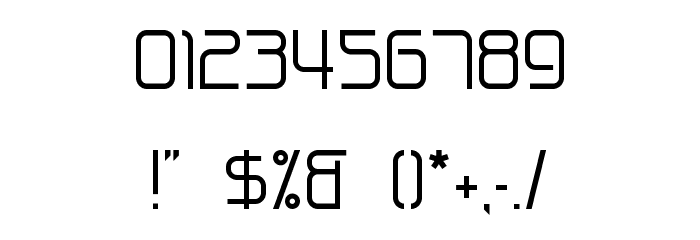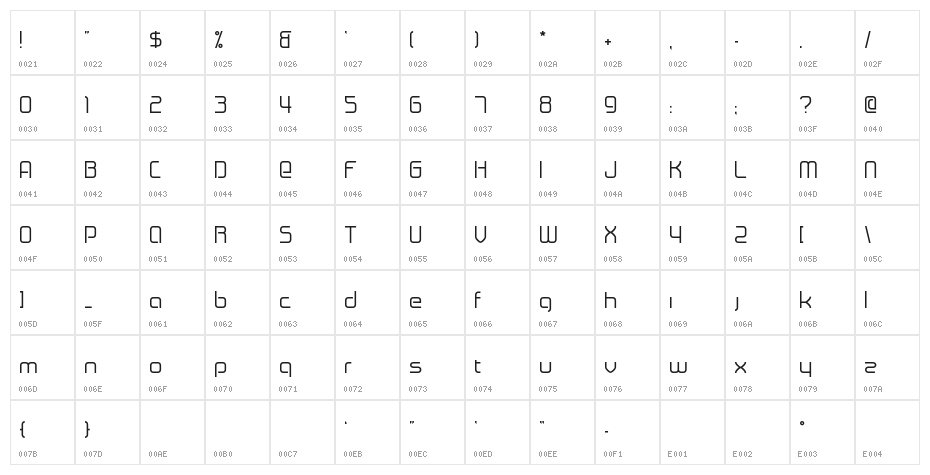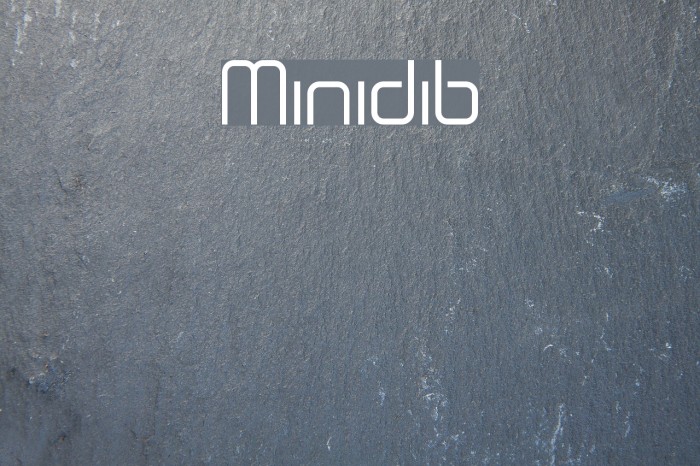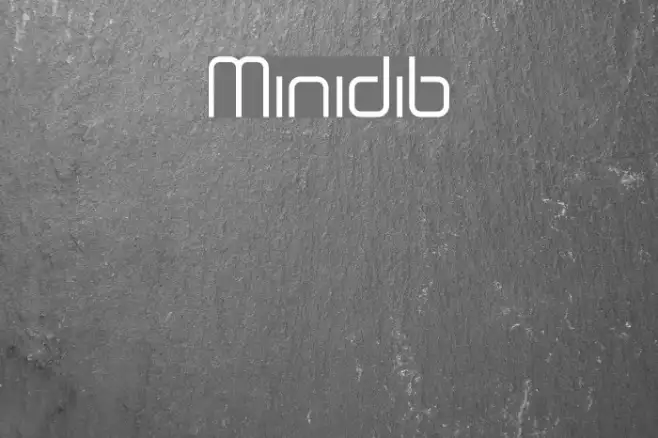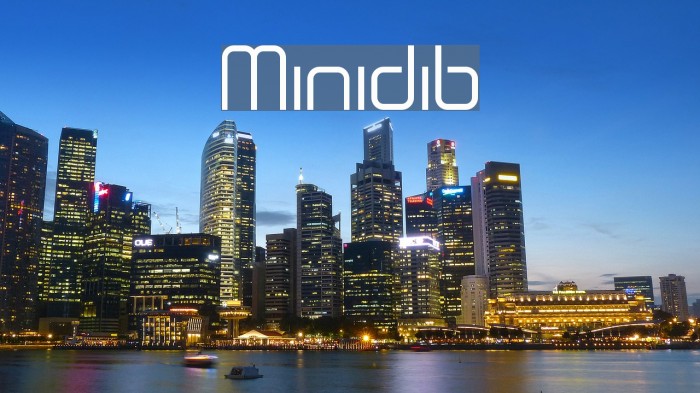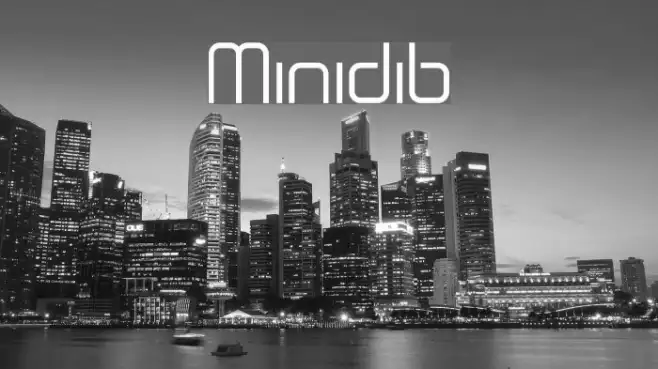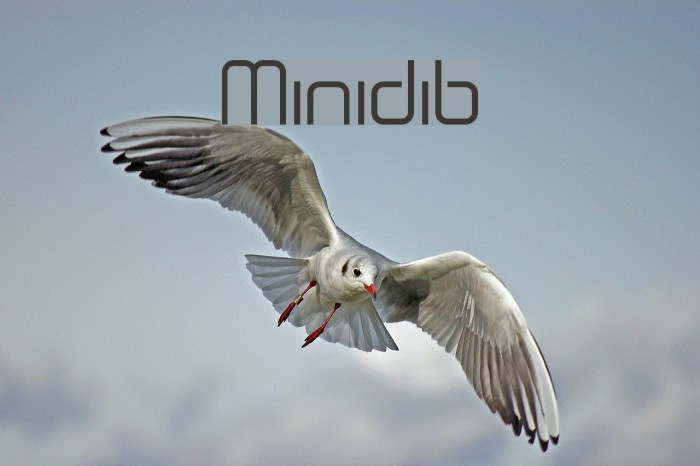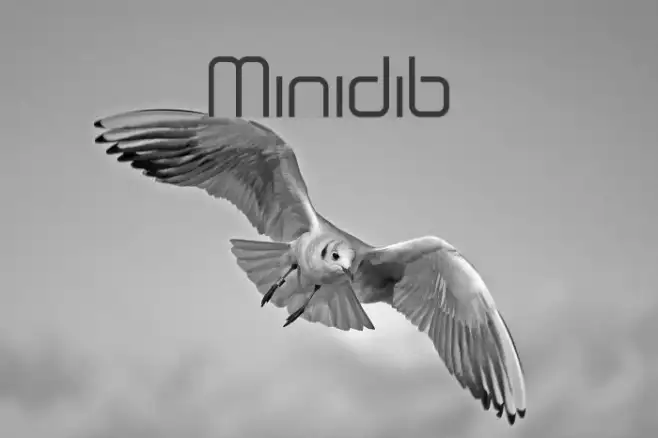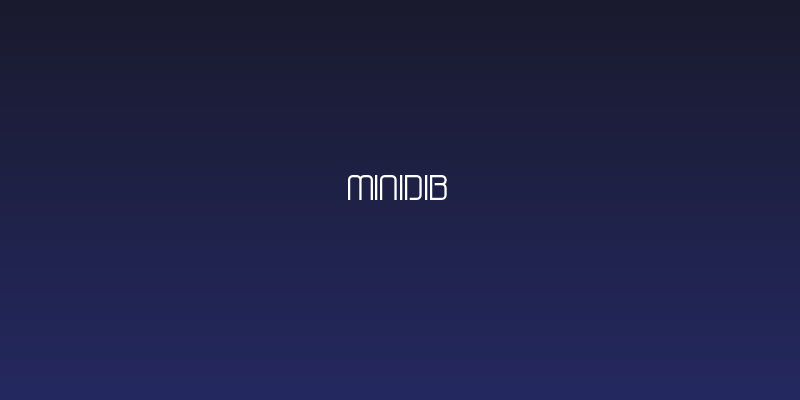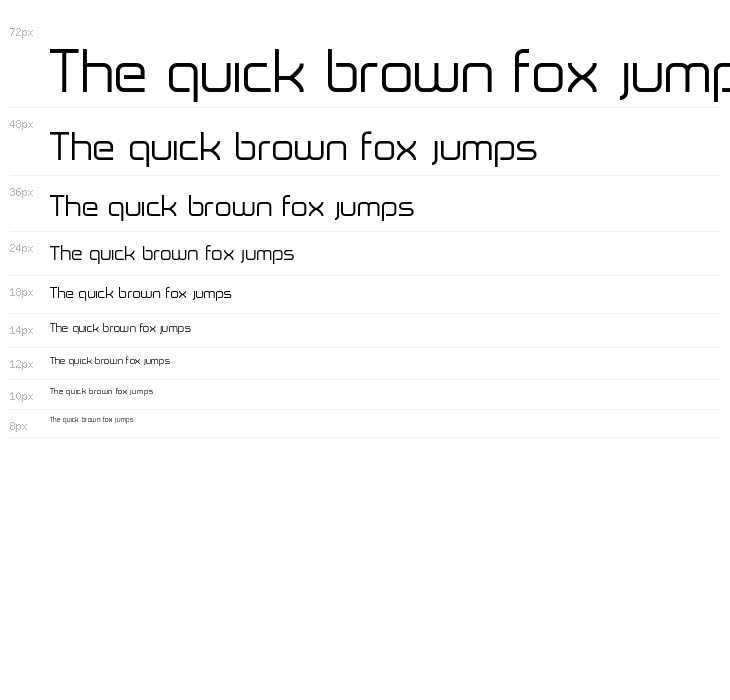
Minidib Font
Minidib Description
This font features a clean, geometric design with a modern aesthetic. The characters are constructed with consistent stroke widths, giving it a uniform appearance. The uppercase and lowercase letters maintain a similar structure, enhancing readability. The numerals and special characters follow the same design principles, ensuring a cohesive look across all elements. The font's simplicity and clarity make it suitable for digital interfaces and print media. Its minimalistic style is both functional and visually appealing, making it versatile for various design projects.
| Proposed Projects | Ideal for digital interfaces, branding, signage, and print media where clarity and modern aesthetics are desired. |